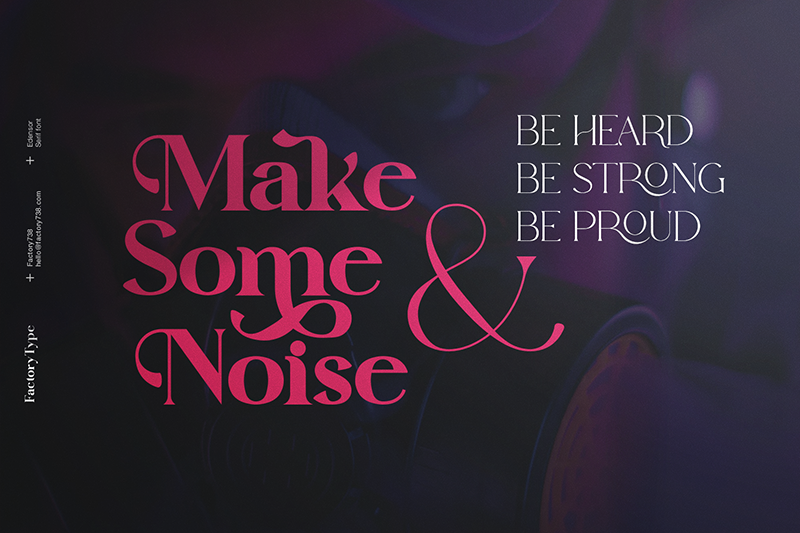
Note of the authorGet the FREE DOWNLOAD of Edensor, the perfect serif font for playful yet romantic designs. Its elegant curves and classy composure offer a range of weights and choices to suit any project. Dont miss out on this must-have font for your next design project. DOWNLOAD now and elevate your designs to the next level!